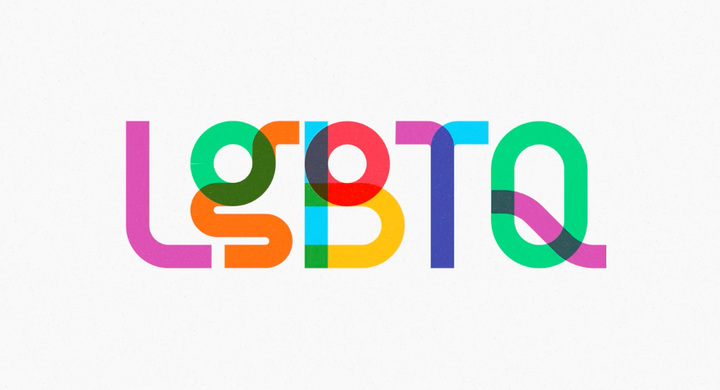
In June of 1978, artist and activist Gilbert Baker hand-dyed and stitched together eight strips of vibrant fabric, yielding a rainbow flag.
Each color signified a certain power: pink stood for sex, red for life, orange for healing, yellow for sun, green for nature, turquoise for magic, blue for peace and purple for spirit. Today, that flag ― which over time was condensed from eight colors to six ― is immediately recognizable as a symbol of LGBTQ rights and pride.
Baker, who called himself “gay Betsy Ross,” died in March 2017, but his iconic contribution to queer visual culture lives on. In honor of Baker’s legacy, advertising agency Ogilvy & Mather has teamed up with Newfest, NYC Pride and Fontself to translate the energy and strength of the beloved rainbow flag into text. Finally, there is a rainbow font.
The colorful type, titled “Gilbert,” is made up of the deconstructed stripes of the Pride flag, with multicolored rectangles curving and overlapping to produce lettering reminiscent of the flag’s 1970s roots.
“We wanted to celebrate something that he created that actually changed peoples’ perception of that community,” Ogilvy creative director Chris Rowson told Dezeen.
The blending of colors visualizes, according to Rowson, the fluidity and openness of the LGBTQ community. “We liked the idea of that crossover and that overlay, it kind of creates new things,” he said. “People aren’t just one thing, they’re not just gay, or not just transsexual, everyone can be a mixture of things.”
Queers, allies and font fanatics, get ready to write with rainbow.